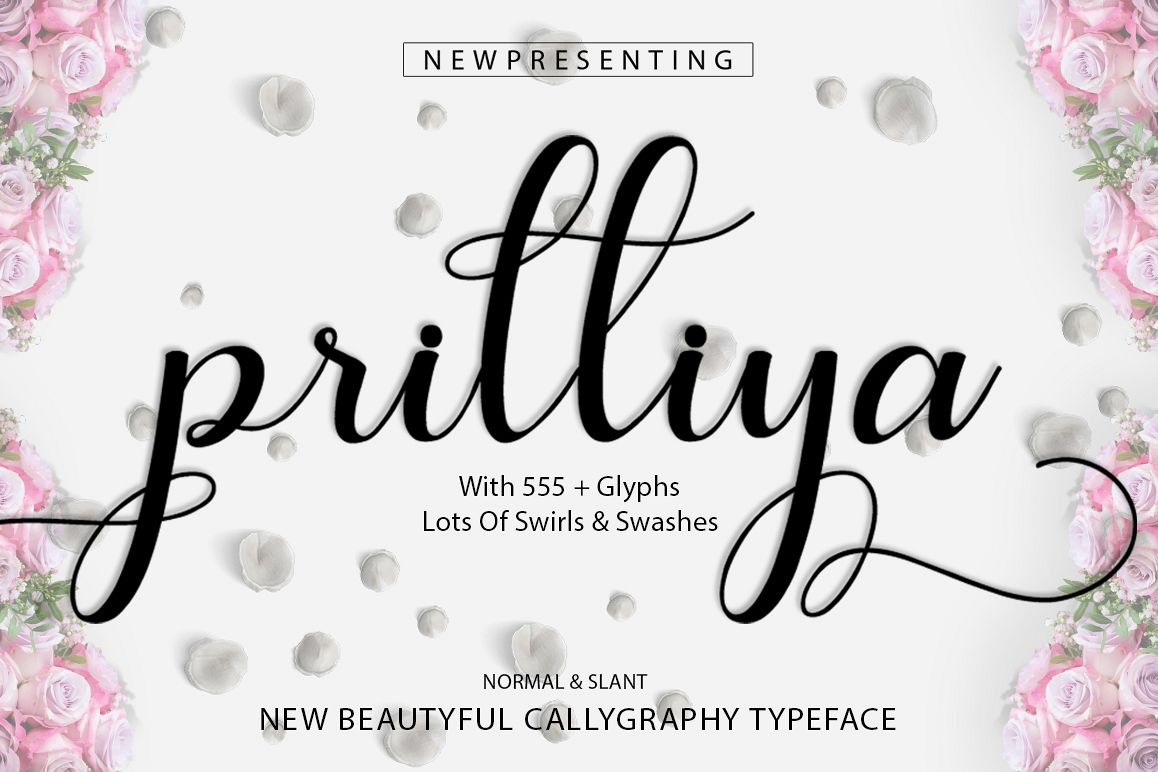
Introducing Prilliya the new Script calligraphy hand lettered typography modern calligraphy script, which combines classic font style with a modernstyle calligraphyWhats INCLUDED?Prilliya Script (otf) . Prilliya script (ttf)There are more than 555 + glyphs in a font including stylistic sets, Contextual Substitute etc. OpenType features with the Stylistic Alternates,Alternative Contextual a few characters that allows you to mix and match pairs of letters according to your design. To access alternate glyphs, youneed a program that supports OpenType features such as Adobe Illustrator CS and Adobe InDesign, Corel Draw, Microsoft Word 2010.Can be used for various purposes such as title, signature, logo, wedding invitations, t-shirts, letterhead, signage, labels, newsletters, posters,badges etc.For use in office word, you all can read the following article.http://www.magpiepaperworks.com/blog/using-opentype-fonts-in-microsoft-word/ To Access Alternate Characters Click The Link Below:Adobe illustrator CS https://www.youtube.com/watch?v=geL0Ye02Ryk How to access alternates in Adobe illustrator CC https://www.youtube.com/watch?v=V25yiUh8BcE How to access alternates in Ms Word https://www.youtube.com/watch?v=HxkhZiCuwEw How to access alternates in Coreldraw X7https://www.youtube.com/watch?v=UBVsufJjons How to access alternates in Adobe Photoshop CC https://www.youtube.com/watch?v=BYKXl58AdNY How to access alternates in Indesign CS https://www.youtube.com/watch?v=HgZTCxKG14Q How to access alternates in another software https://fontbundles.net/tutorials.Thanks and happy designing :-)